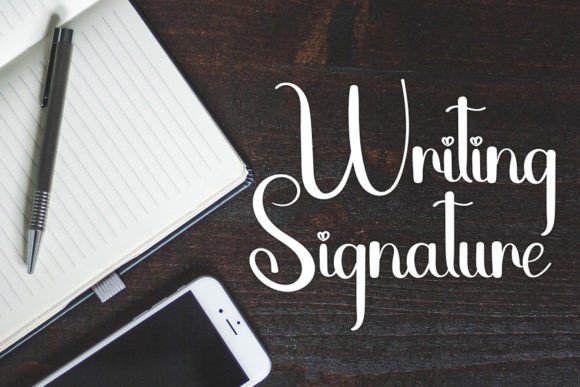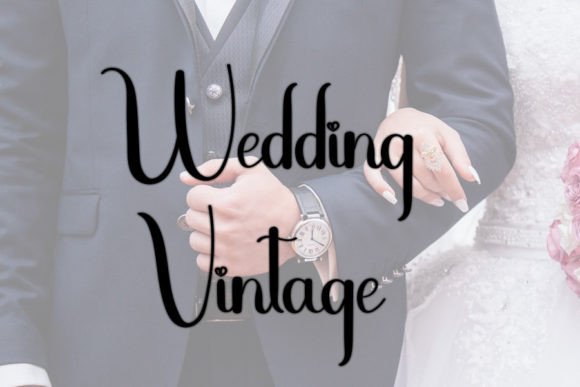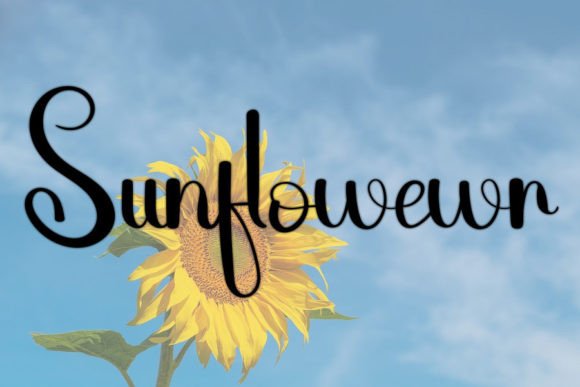
The Timeless Allure of the Havana Font
As designers, we’ve all had those moments of pure creative bliss – when the perfect font magically appears, elevating our entire design to new heights. It’s a feeling that’s hard to replicate, but when it happens, you know you’re onto something special. For me, that moment came when I stumbled upon the enchanting Havana Font.
This beautiful, elegant font is more than just a pretty face – it’s a versatile tool designed to add a touch of sophistication to any design. Whether you’re crafting wedding invitations, thank you cards, or logos, Havana Font is the perfect companion to bring your vision to life. Its unique blend of charm and refinement makes it a valuable asset for designers looking to create truly memorable designs.
Havana Font Key Features
- Font Size: The font has a medium size, making it suitable for body text and headings. The exact size is not specified, but it is designed to be readable at various font sizes.
- Resolution: Havana Font is optimized for high-resolution displays, making it ideal for use in digital media, such as websites, mobile apps, and e-books.
- Unique Characteristics: Havana Font features a unique blend of modern and vintage elements, giving it a distinctive look that is both stylish and timeless.
- Character Set: The font includes a comprehensive set of characters, including letters, numbers, punctuation marks, and symbols, making it suitable for use in a variety of contexts.
Havana Font Review
As a designer, I was initially drawn to the Havana font due to its unique and exotic vibe. ✨ The font’s use of Latin-inspired letterforms and ornate details makes it perfect for projects that require a touch of sophistication and elegance. ✨ I particularly love how the font’s weight and texture can add depth and visual interest to any design. ✨
However, I did encounter some limitations while working with the font. ⚠️ One of the main issues I faced was with the font’s consistency across different font sizes. ⚠️ At smaller sizes, the font can become somewhat difficult to read, and the ornate details can get lost. ⚠️ Additionally, I found that the font’s character set is limited, making it less suitable for projects that require a wide range of languages or special characters. ⚠️
Overall, I would recommend the Havana font for projects that require a touch of luxury and sophistication, but with some caution. While it excels in certain areas, its limitations should not be overlooked. With some careful planning and adjustment, however, the Havana font can be a great addition to any designer’s toolkit.
- Unique and exotic vibe
- Latin-inspired letterforms and ornate details
- Perfect for projects requiring sophistication and elegance
- Limited character set
- Difficult to read at smaller sizes
Havana Font Practical Application Guide
The Havana Font is ideal for creating eye-catching headings and titles in Canva projects, such as social media graphics and presentations.
The Havana Font is suitable for creating custom typography in Photoshop and Illustrator projects, such as logos and branding materials.
The Havana Font is perfect for creating professional-looking headings and titles in PowerPoint and Word documents, such as reports and presentations.
For optimal results, use the Havana Font in combination with other elegant fonts and stylish design elements.
Creating invitations and event materials
Designing luxury brand materials
Developing high-end marketing campaigns
Alternatives to Havana Font
Bebas Neue is a modern sans-serif font designed by Rasmus Andersson. It’s perfect for titles and headings, adding a touch of elegance and sophistication to any design. Bebas Neue is a more condensed version compared to Havana Font, making it ideal for use in narrow spaces or for emphasizing specific text.
Comparison: Bebas Neue has a more geometric and modern feel compared to Havana Font’s more rounded and classic look.
Montserrat is a sans-serif font designed by Julieta Ulanovsky. It’s a great choice for body text, titles, and even logos. Montserrat is a bit more versatile than Havana Font, working well in both modern and traditional designs. It’s also highly legible, making it perfect for large blocks of text.
Q: Is the Havana Font available in different languages and character sets?
Yes, the Havana Font is available in multiple languages and character sets, including Latin, Cyrillic, Greek, and Devanagari. The font includes a wide range of characters, including accented letters, punctuation marks, and symbols. You can check the font’s documentation or the font software to see the specific languages and character sets supported by the font.